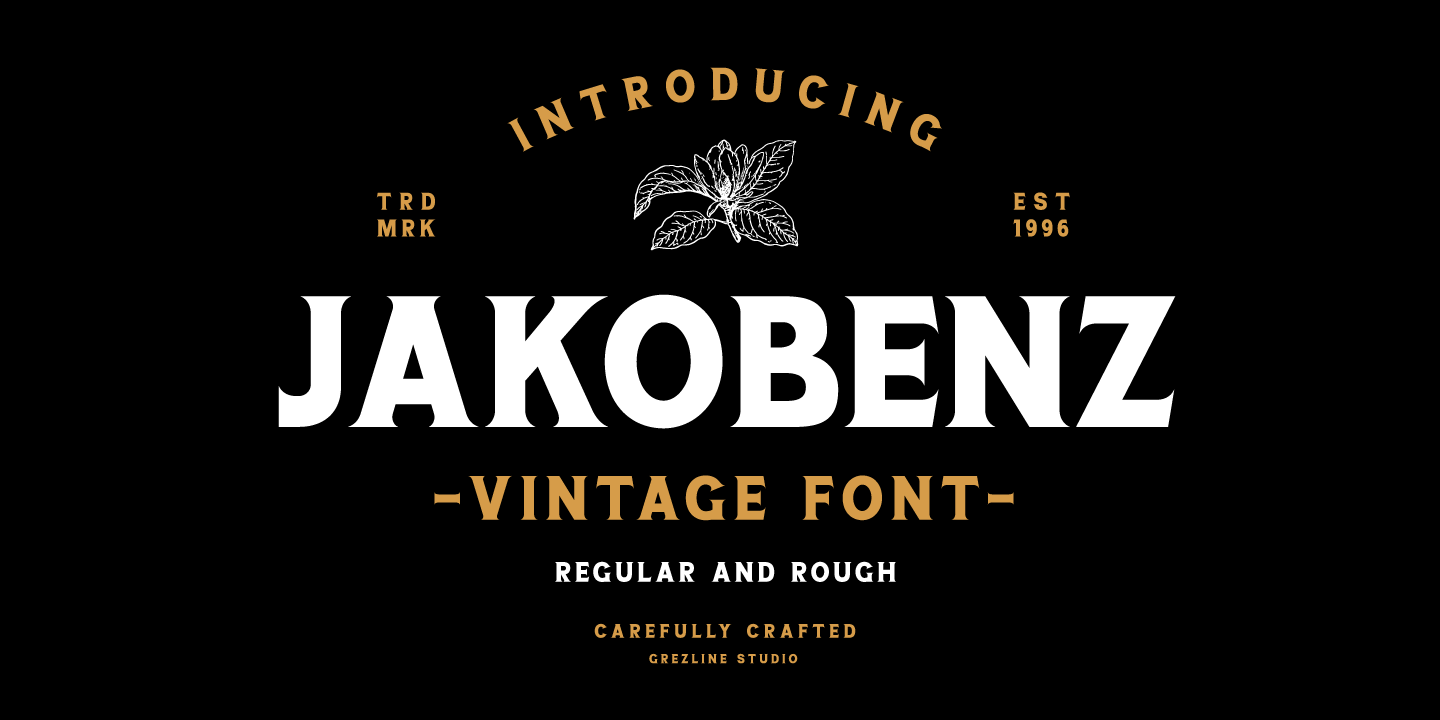
Jakobenz Font is ideal for luxury automotive branding, premium German engineering logos, high-end mechanical designs, precision manufacturing signage, sophisticated industrial materials, executive business communications, refined technical documentation, professional engineering presentations, and distinguished corporate identities.
What makes Jakobenz Font so exciting is its Germanic precision that perfectly embodies the meticulous craftsmanship and engineering excellence synonymous with German industrial heritage and technical innovation. This distinguished typeface features precise letterforms with mechanical accuracy and systematic proportions that create an immediate sense of quality, reliability, and engineering sophistication. The font's distinctive character incorporates the methodical excellence of German design philosophy while maintaining exceptional readability, making it ideal for brands seeking to communicate precision, reliability, and world-class engineering standards.
Jakobenz Font offers a comprehensive engineering family including Thin, Light, Regular, Medium, Bold, and Black weights, each available in Roman and Italic styles. Advanced OpenType features include technical symbols, engineering notation, professional ligatures, and Germanic character support designed specifically for industrial and mechanical applications requiring maximum precision.
Whether you're developing precision engineering brands, creating technical documentation, or designing mechanical marketing materials, Jakobenz Font Free Download provides the Germanic excellence and technical authenticity that engineering industries demand. Its versatile nature makes it suitable for both detailed technical specifications and impressive corporate displays while maintaining consistent engineering appeal across all industrial platforms. This exceptional typeface combines German engineering heritage with modern functionality, ensuring your message communicates quality and precision that resonates with professional audiences who appreciate Germanic craftsmanship and value design that represents the highest standards of mechanical engineering and industrial excellence.